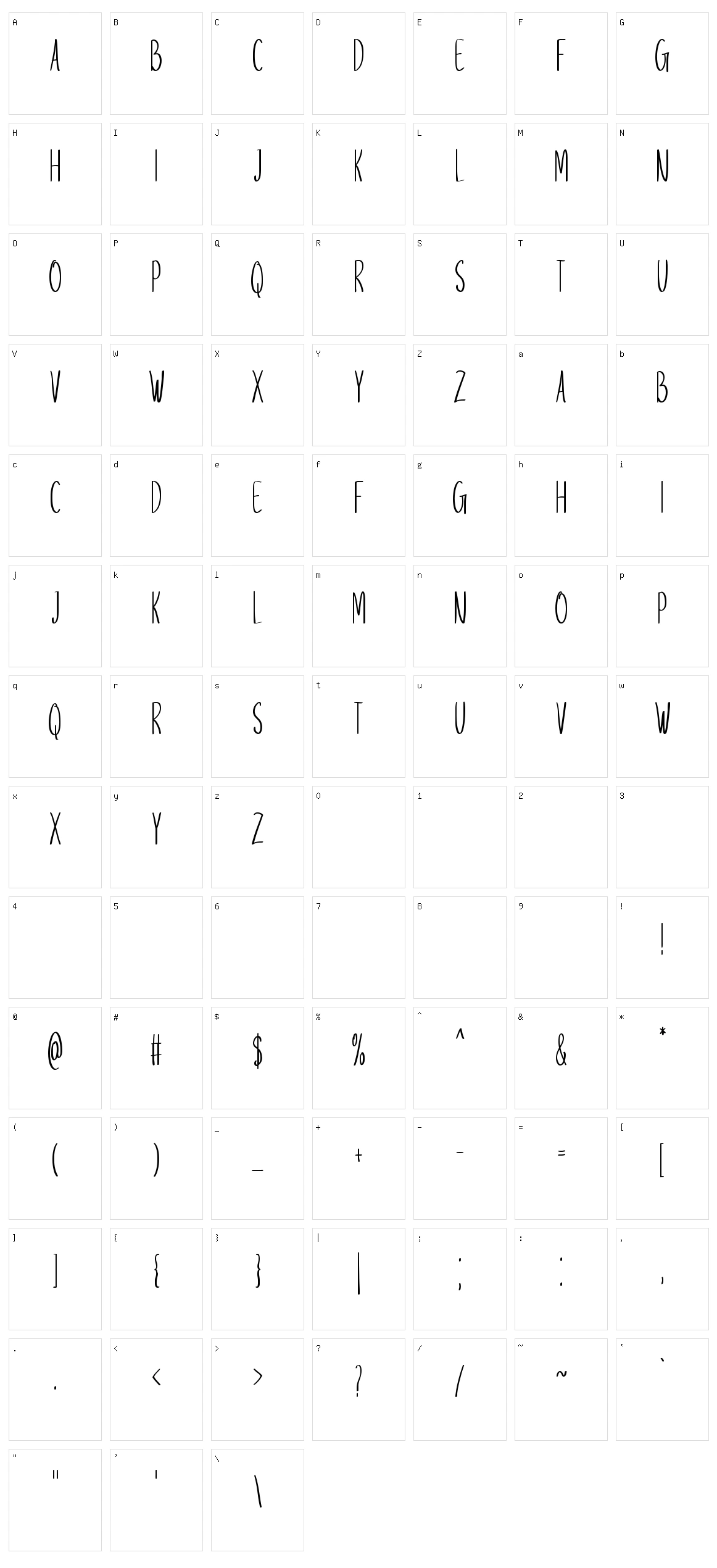
The free font Majestic Valentine is carefully designed by Md Shohail Bhuian, showcasing a thoughtful balance of creativity and usability and falls under the Script font style. When you download the ZIP file, it contains only 55.84 KB of font files, making it lightweight and quick to download. Please review the license details below to understand permitted usage and distribution rights. If license information is not available, we recommend using this font for personal projects only or contacting the author directly for commercial usage permissions.